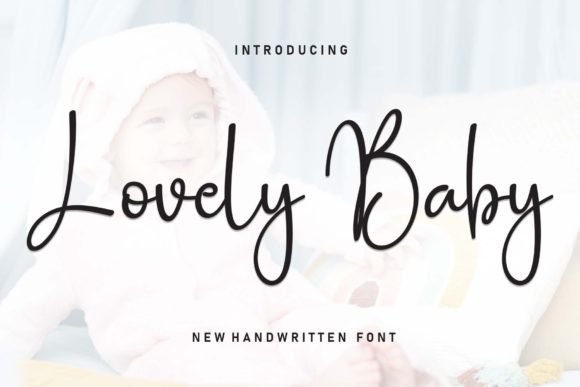
Welcome to the world of Lovely Baby Font, where charm and elegance intertwine to create a script font that captures the essence of love and tenderness. Let your creativity soar as you explore the limitless possibilities of this exceptional font, meticulously designed by Creativewhitee.
Immerse yourself in the whimsical flow of Lovely Baby Font, inspired by the innocent charm of handwritten notes. Each letter dances across the page with a graceful fluidity, reminiscent of a gentle summer breeze. Its natural and unique style transcends trends, making it an evergreen choice for designers seeking a font that exudes both warmth and sophistication.
Whether you're crafting heartfelt invitations, designing heartwarming logos, or creating captivating social media graphics, Lovely Baby Font is your perfect companion. Its versatility knows no bounds, allowing you to effortlessly add a touch of charm to any project.
Unlock your imagination and let Lovely Baby Font guide you on a journey of creative expression. Its ability to evoke emotions and create a lasting impression is unparalleled. Transform your designs into captivating works of art that resonate with your audience, leaving them enchanted by the beauty of your creations.
With Lovely Baby Font, you'll discover a font that's not just a collection of letters, but an expression of your unique style and personality. Dive into the world of Lovely Baby Font and unleash your creativity, transforming your designs into captivating masterpieces that speak volumes without uttering a single word.